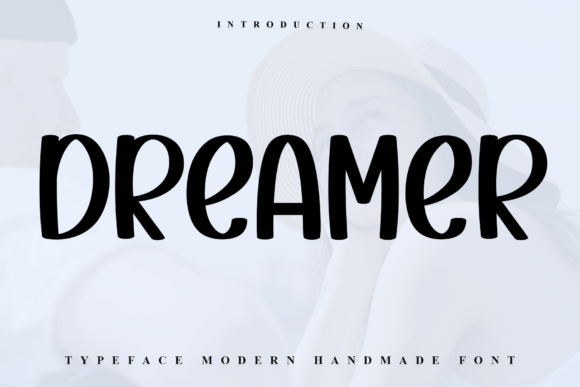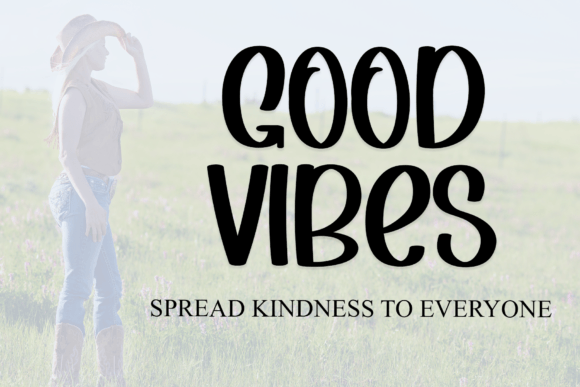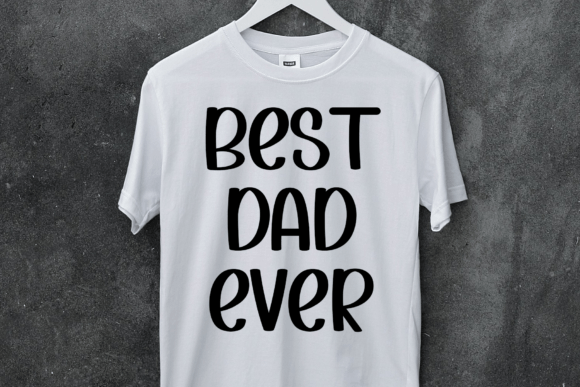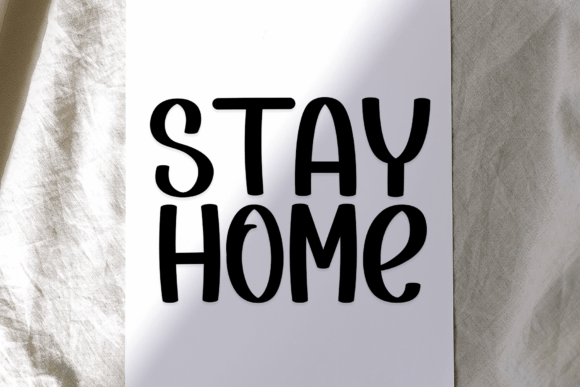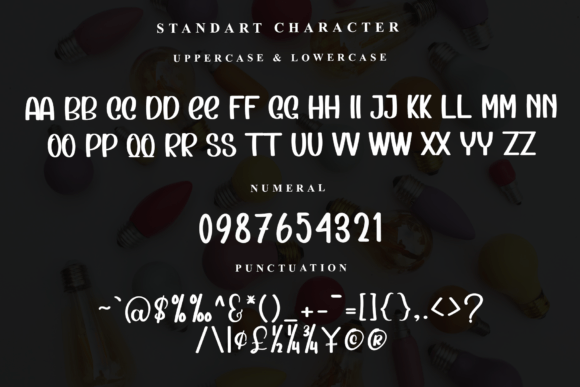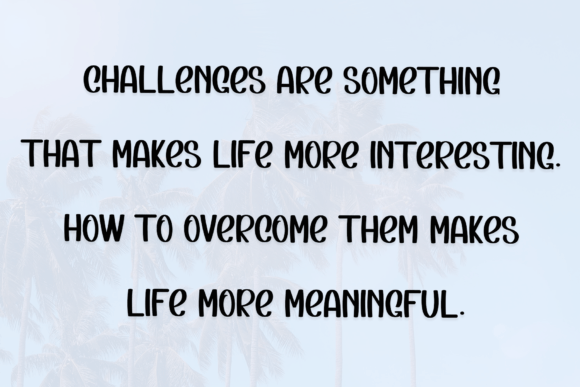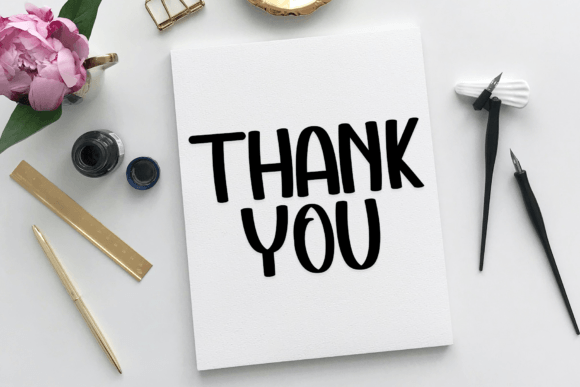
Dreamer Font
Dreamer is a charming handwritten font imbued with a sense of freshness and casual elegance. Its fluid strokes and organic lines evoke a laid-back vibe, making it perfect for various design projects. Whether used for branding, invitations, or social media graphics, Dreamer adds a touch of warmth and personality.